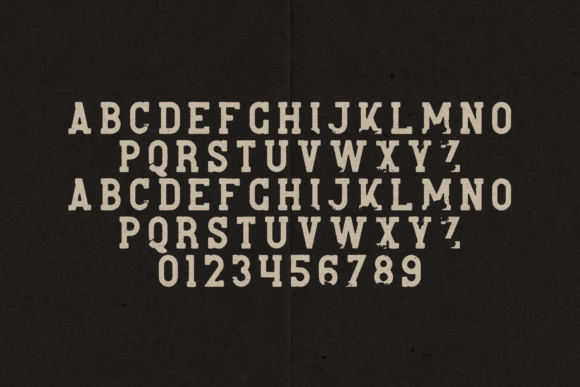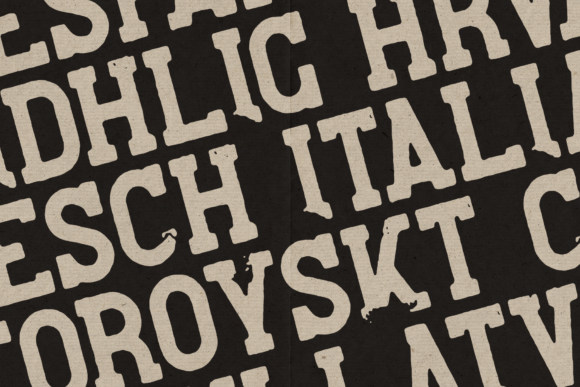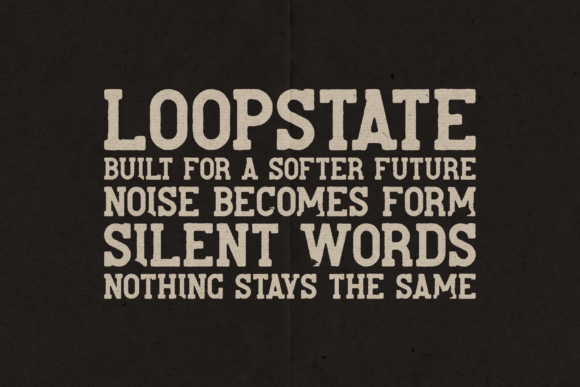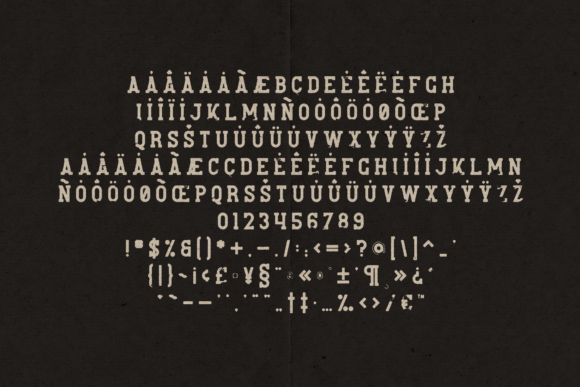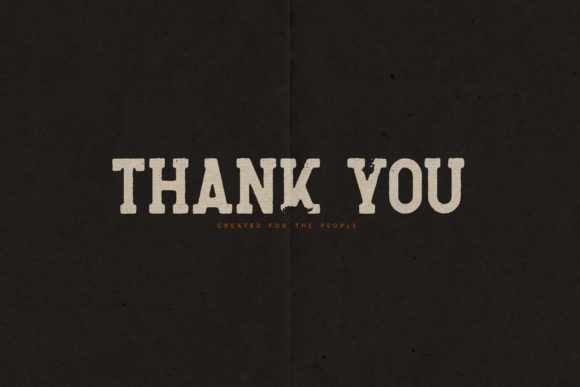
Discover the Charm of Burble Font: A Bold Vintage Slab Display Font
Are you looking for a font that exudes confidence, warmth, and a touch of nostalgia? Look no further than the Burble font, a bold vintage slab display font that is sure to elevate your design projects. With its strong letterforms, soft curves, and timeless, handcrafted feel, Burble is the perfect choice for designers and crafters seeking a unique and captivating aesthetic.
The Characteristics of Burble Font
Burble is a bold and eye-catching font that boasts chunky, blocky serifs with a soft, weathered texture. This distinctive feature sets it apart from standard slab fonts, giving it a hand-pressed, organic feel that is both sturdy and welcoming. The font’s weighted presence makes it ideal for large headlines on signage or wood-print packaging, while its soft curves ensure that it remains approachable and highly readable.
Perfect for Nature-Based Branding and More
Burble font is particularly well-suited for nature-based branding, farm-to-table restaurant menus, and adventure gear logos that require a sense of ruggedness and approachability. Its vintage-inspired aesthetic makes it an excellent choice for designs that need to evoke a sense of tradition and heritage. Whether you’re working on a camping blog, a craft brewery label, or botanical garden signage, Burble provides a grounded, earthy feel that is sure to resonate with your audience.
Pairing Burble with Other Fonts
To take your design to the next level, consider pairing Burble with a clean, modern sans serif font. This combination creates a balanced “outdoorsy-chic” look that is both visually appealing and effective. The contrast between Burble’s bold, vintage aesthetic and the sleek, modern sans serif font adds depth and interest to your design, making it perfect for headlines, titles, and other applications where you want to make a statement.
Why Choose Burble Font?
So why choose Burble font for your design projects? Here are just a few reasons:
• Unique aesthetic: Burble’s distinctive blend of bold, chunky serifs and soft curves creates a truly unique aesthetic that sets it apart from other fonts.
• Highly readable: Despite its bold and chunky appearance, Burble is highly readable, even at smaller sizes.
• Versatile: Burble is suitable for a wide range of design applications, from nature-based branding to craft brewery labels and more.
• Timeless feel: Burble’s vintage-inspired aesthetic gives it a timeless feel that won’t go out of style anytime soon.
In conclusion, Burble font is a bold, vintage slab display font that is sure to add a touch of charm and character to your design projects. With its unique aesthetic, high readability, and versatility, Burble is an excellent choice for designers and crafters seeking a font that exudes confidence, warmth, and a sense of nostalgia. Whether you’re working on a nature-based branding project, a craft brewery label, or botanical garden signage, Burble is sure to deliver a captivating and effective design solution.